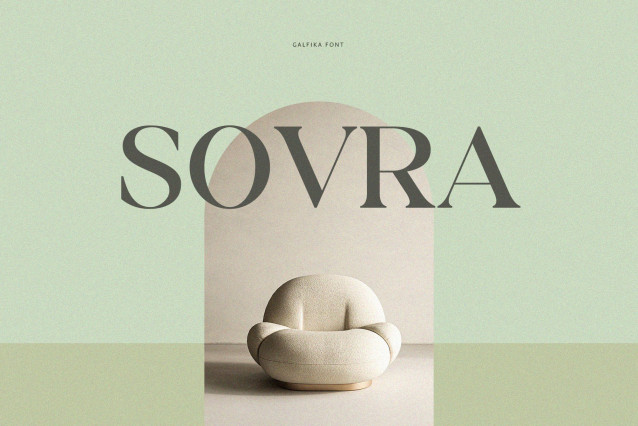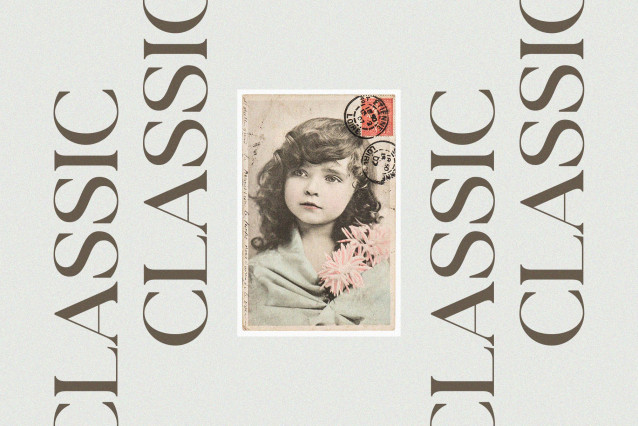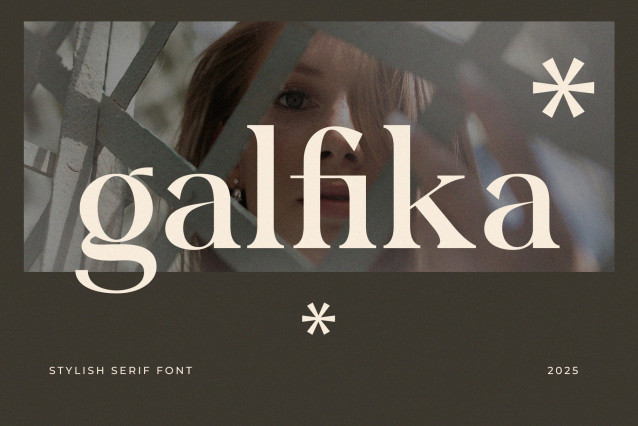
Galfika Font
Galfika Font is a modern and classy typeface, best used as a display for headings, logos, branding, magazines, product packaging and invitations. Galfika come with clean lines and smooth curves give any project an extra touch of class.